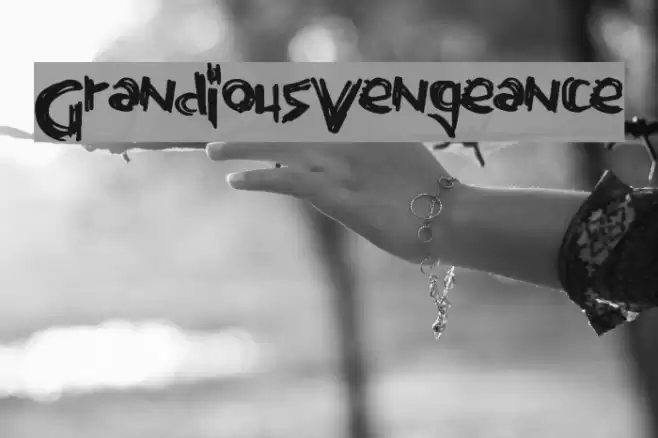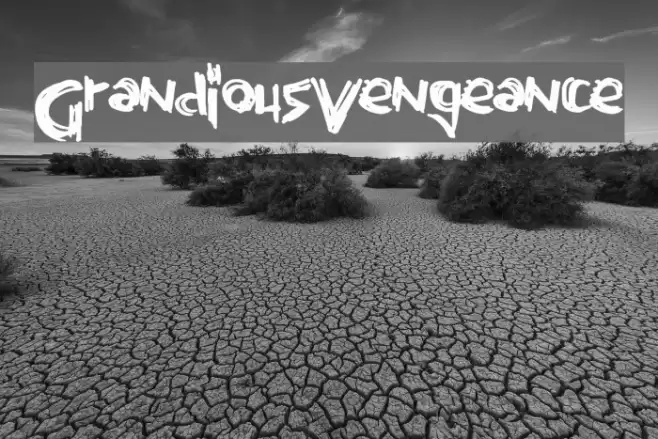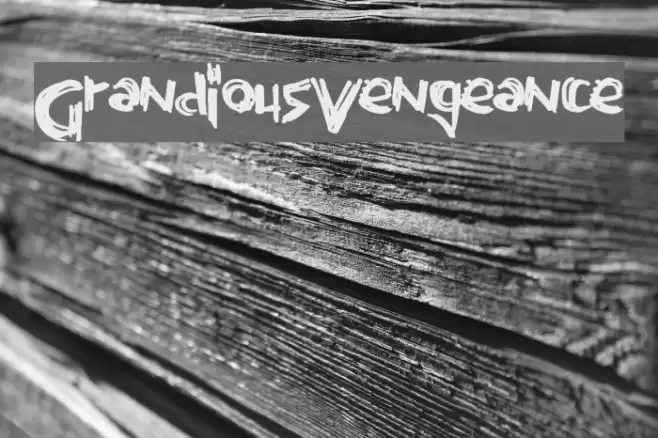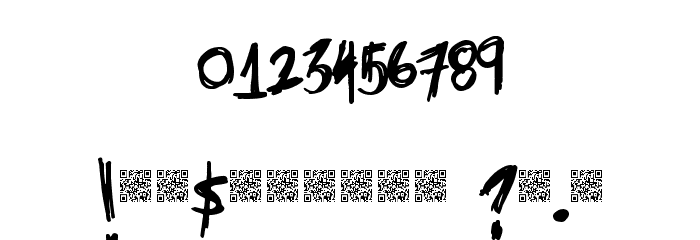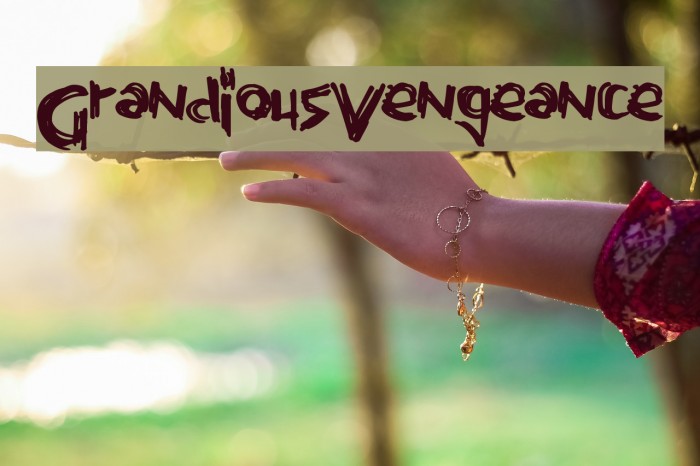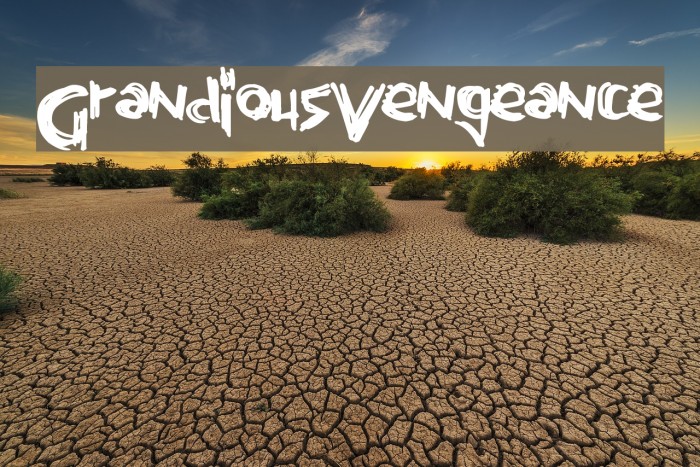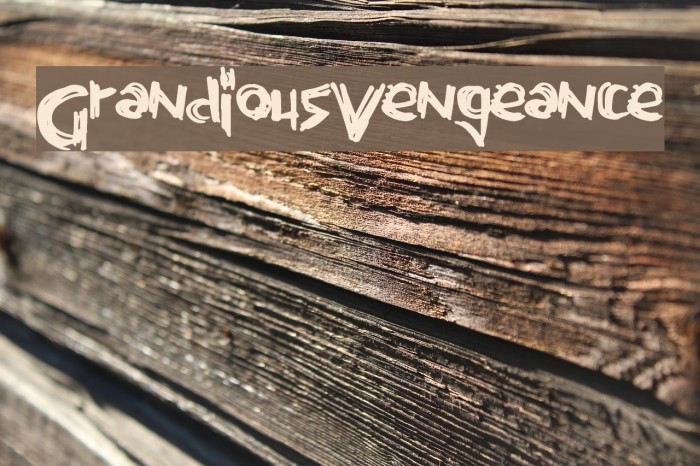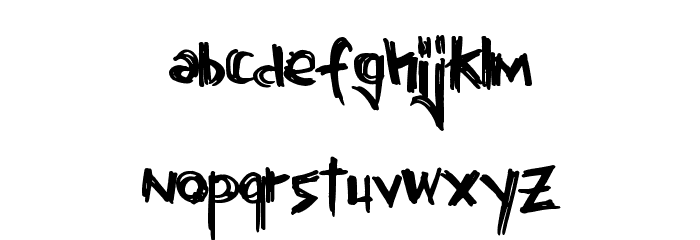
GrandiousVengeance Font
GrandiousVengeance Description
This font exudes a bold and rebellious energy, characterized by its jagged, brush-like strokes that give it a raw, hand-drawn appearance. The uppercase letters are particularly striking, with exaggerated angles and uneven lines that create a sense of movement and urgency. The lowercase letters maintain this dynamic style, though they are slightly more restrained, providing a nice balance. Numbers and special characters follow the same aesthetic, ensuring consistency across all elements. This font is perfect for projects that require a dramatic and edgy look, such as album covers, posters, or any design that aims to capture attention with its unconventional style.
A bold, edgy font with jagged, brush-like strokes and a rebellious energy from Uncategorized fonts.
- Proposed Projects: Ideal for album covers, posters, and designs requiring a dramatic, attention-grabbing style.
- Overall Style: Modern, Edgy